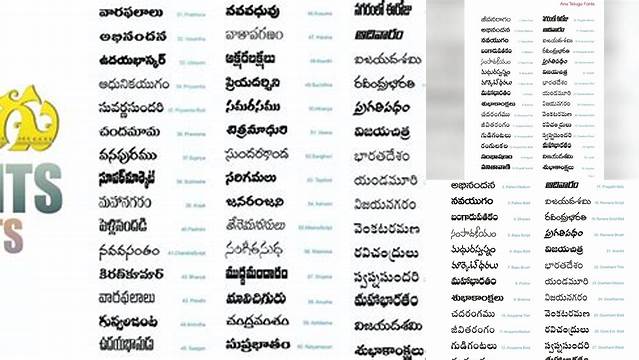
Anu Telugu Fonts: Your Guide To Telugu Typography
Anu Telugu Fonts, guys, are your gateway to weaving the beautiful tapestry of the Telugu language into your digital creations. Whether you're crafting a vibrant website, designing eye-catching posters, or simply penning a heartfelt email, the right font can make all the difference. So, what exactly are Anu Telugu Fonts? They are a specific type of digital font designed to represent the Telugu script, a writing system used primarily in the Indian state of Andhra Pradesh and Telangana. These fonts are meticulously crafted to accurately and beautifully render the complex curves, unique characters, and subtle nuances of the Telugu language. In this article, we'll dive deep into the world of Anu Telugu Fonts, exploring their significance, how to use them, and where to find them. Get ready to unlock the power of Telugu typography and transform your projects into works of art! Choosing the right Anu Telugu Font can feel overwhelming, with so many options available. But fear not! We'll equip you with the knowledge and resources you need to make informed decisions, ensuring your Telugu text looks its absolute best. From understanding the technical aspects of font installation to discovering the creative possibilities they offer, we'll cover everything you need to know to become a true Telugu typography aficionado. Let's embark on this exciting journey together!
1. The Essence of Anu Telugu Fonts: A Deep Dive
Anu Telugu Fonts are more than just a collection of letters; they are the embodiment of a rich cultural heritage. Each glyph, each stroke, is carefully designed to reflect the grace and elegance of the Telugu script. These fonts are the digital equivalent of the traditional calligraphic styles that have been passed down through generations. Imagine the effort and skill involved in creating each individual character, ensuring it not only looks aesthetically pleasing but also accurately represents the sounds and meanings of the Telugu language. The significance of Anu Telugu Fonts extends beyond mere aesthetics. They play a crucial role in preserving and promoting the Telugu language and culture in the digital age. By providing accessible and visually appealing fonts, they enable people to communicate and express themselves in their native language online, in print, and in various other mediums. This accessibility is particularly important for younger generations who are increasingly reliant on digital technology for education, communication, and entertainment. Without these fonts, the beauty and richness of Telugu would be lost in the digital landscape, potentially hindering its growth and evolution. The availability of high-quality Anu Telugu Fonts empowers individuals, organizations, and businesses to create compelling content that resonates with the Telugu-speaking audience. Whether it's a government website, a local news publication, or a personal blog, these fonts allow for authentic and meaningful communication. The use of these fonts is a celebration of linguistic diversity and cultural pride. Moreover, Anu Telugu Fonts facilitate the creation of inclusive and accessible digital content. By using fonts that accurately render the Telugu script, developers and designers can ensure that everyone, regardless of their background or location, can access and understand the information being presented. This commitment to inclusivity is essential in today's increasingly interconnected world.
1.1. Understanding the Anatomy of Anu Telugu Fonts
Guys, let's get under the hood of these fonts! Anu Telugu Fonts are constructed with a specific set of features and design elements that are essential for accurate rendering. At their core, they rely on a combination of vector graphics and programming code to display the Telugu script. The anatomy of these fonts is a complex interplay of several key components. The glyphs, or individual characters, are the building blocks of any font. In Anu Telugu Fonts, these glyphs include the vowels, consonants, conjunct consonants (combinations of two or more consonants), matras (vowel signs that modify consonants), and special characters. Each glyph is meticulously designed with specific curves, strokes, and proportions to ensure legibility and visual harmony. These glyphs are stored as vector graphics, meaning they are defined by mathematical equations rather than pixels. This allows for scalability without any loss of quality, ensuring that the fonts look sharp and clear regardless of the size. The font's design also needs to deal with the complexity of the Telugu script. Telugu is an abugida, where consonants have an inherent vowel sound. Vowel sounds are indicated by matras, which are attached to the consonants. Additionally, many letters can be combined to form conjunct consonants, which adds another layer of complexity. The font's engine handles these intricate combinations and associations with ease. The font engine is responsible for rendering the glyphs on the screen or in print. When a user types a Telugu character, the font engine interprets the input and selects the appropriate glyphs to display. It then positions these glyphs according to the rules of Telugu script, ensuring that they are correctly connected and aligned. This process is often supported by OpenType features, which provide advanced typographic control. These features enable the font to handle ligatures (special characters that combine two or more glyphs), contextual alternates (variations of glyphs that change based on their surrounding characters), and other complex formatting rules specific to Telugu script. Ultimately, the anatomy of Anu Telugu Fonts reveals the intricate design and engineering that goes into bringing the Telugu script to life on digital platforms. It showcases the dedication of font designers to preserve and promote the beauty and accuracy of this important language.
1.2. The Historical and Cultural Significance of Telugu Script in Anu Fonts
Anu Telugu Fonts don't just represent a way to write; they represent a rich history and a vibrant culture. Understanding the historical roots of the Telugu script and the cultural significance of the language is vital for appreciating the fonts. The Telugu script has its origins in the Brahmi script, which dates back to ancient India. Over centuries, the script evolved and adapted, taking on its unique characteristics. The Telugu script, as we know it today, is believed to have emerged around the 11th century. It is closely related to the Kannada script and shares many similarities. The Telugu script is known for its elegant curves and rounded shapes, which are a result of the influence of palm-leaf manuscripts. Traditionally, Telugu was written with a stylus on palm leaves. This writing style influenced the shape of the letters, giving them their characteristic curves. With the advent of printing and digital technology, the script has further adapted, evolving to suit the needs of modern communication while maintaining its historical integrity. The cultural importance of Telugu is immense, as Telugu is spoken by over 80 million people, making it one of the most widely spoken languages in India. It is the official language of Andhra Pradesh and Telangana, and it's a significant language in several other states. Telugu literature and poetry are celebrated across the country, and the language plays a crucial role in the cultural identity of its speakers. Telugu cinema (Tollywood) is a major force in the Indian film industry. It produces a vast number of movies annually, reaching a wide audience and showcasing Telugu culture to the world. The use of Anu Telugu Fonts in these movies, websites, and other media is a way of preserving and promoting the language and culture. The use of these fonts ensures that the language's visual representation accurately reflects its cultural context. These fonts act as a visual reminder of the language's origins and heritage. By using these fonts, we acknowledge and celebrate the history of Telugu. It's about more than just the visual appearance of text. It is a way of connecting with the soul of Telugu and its people.